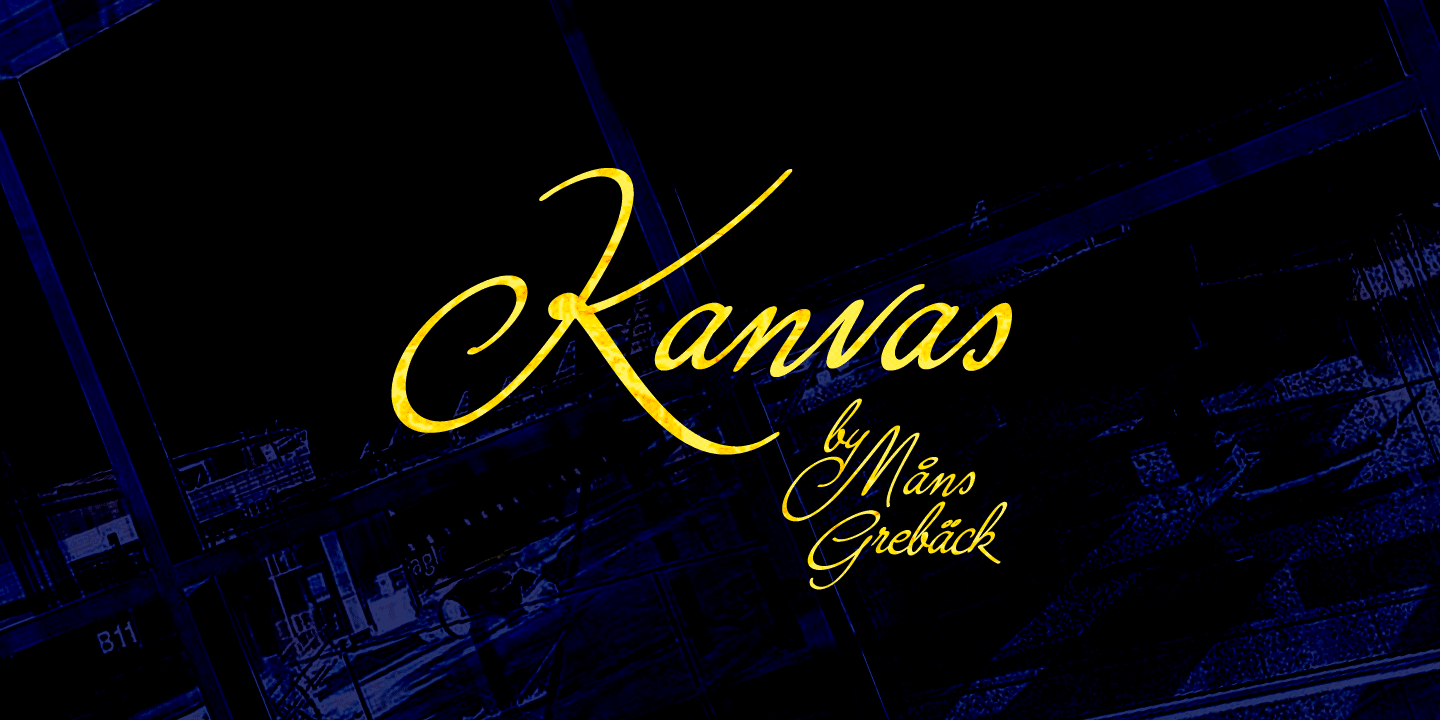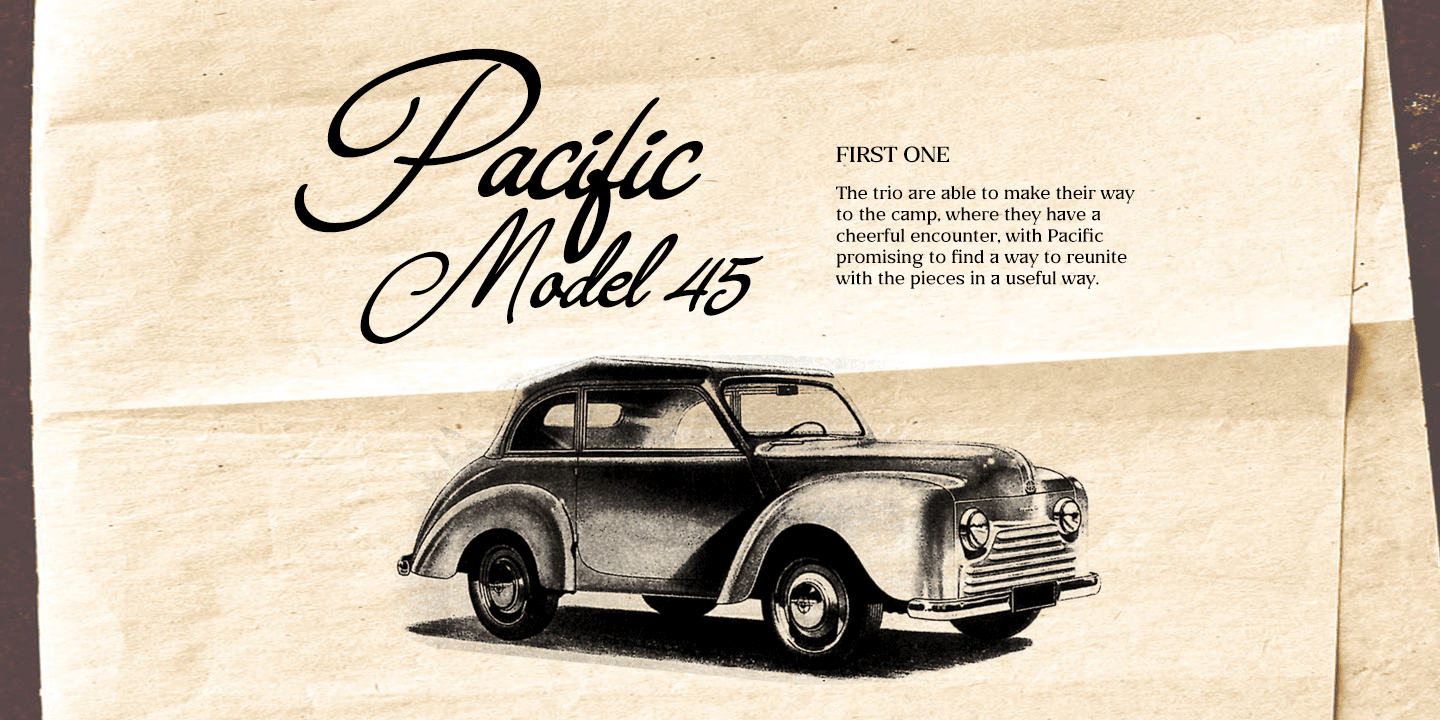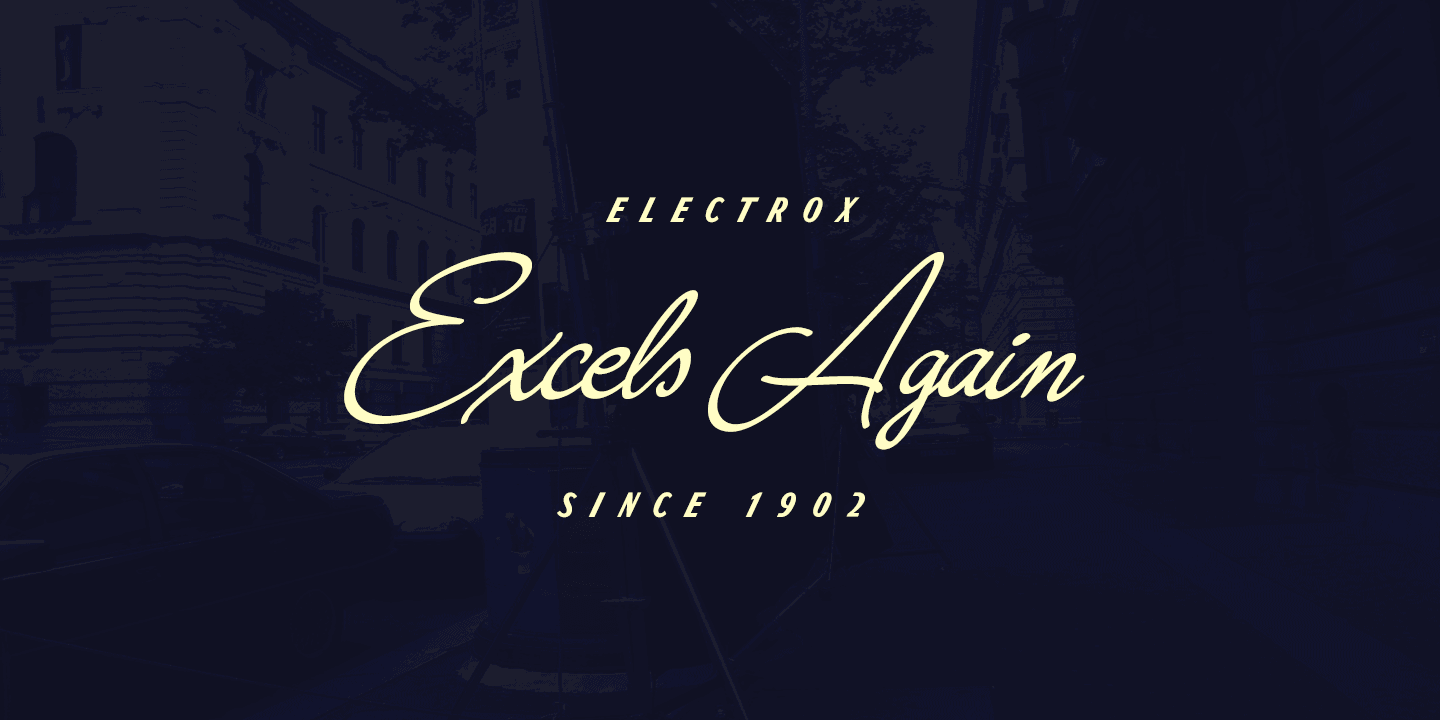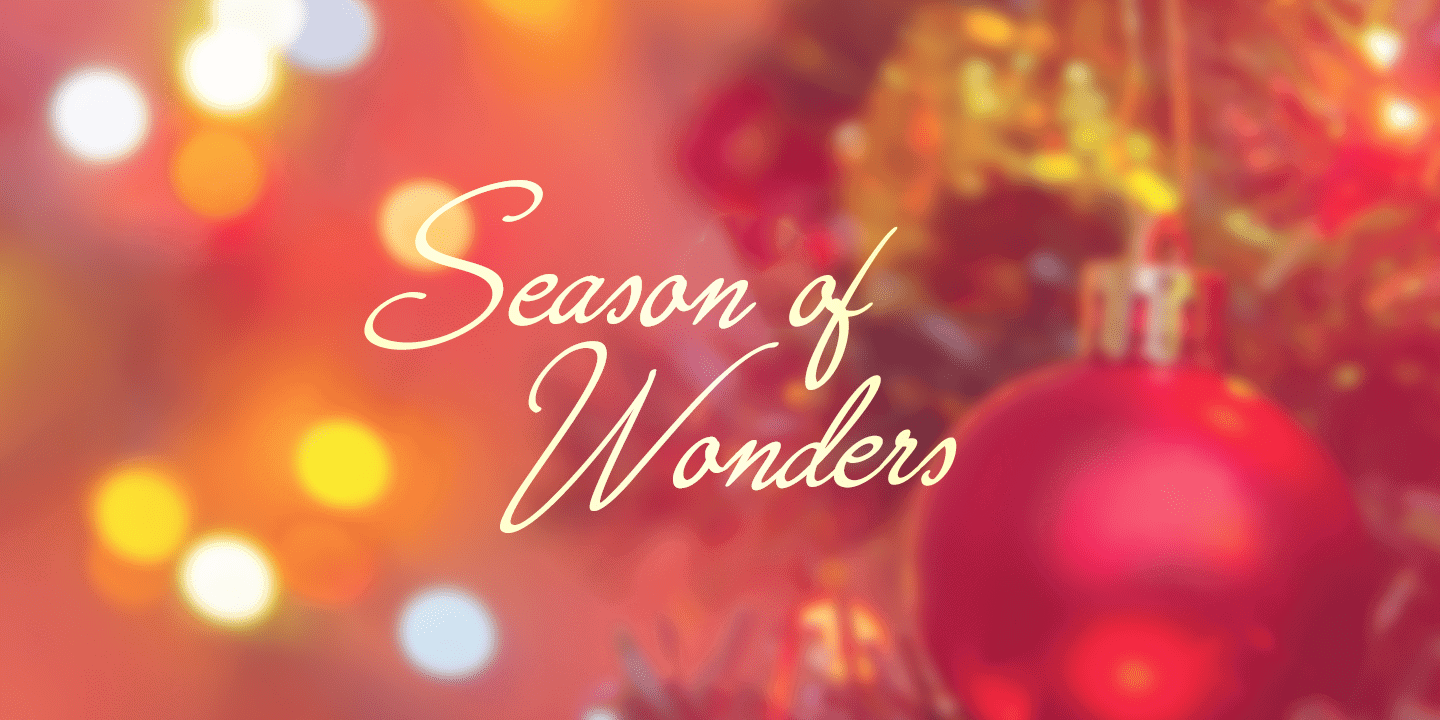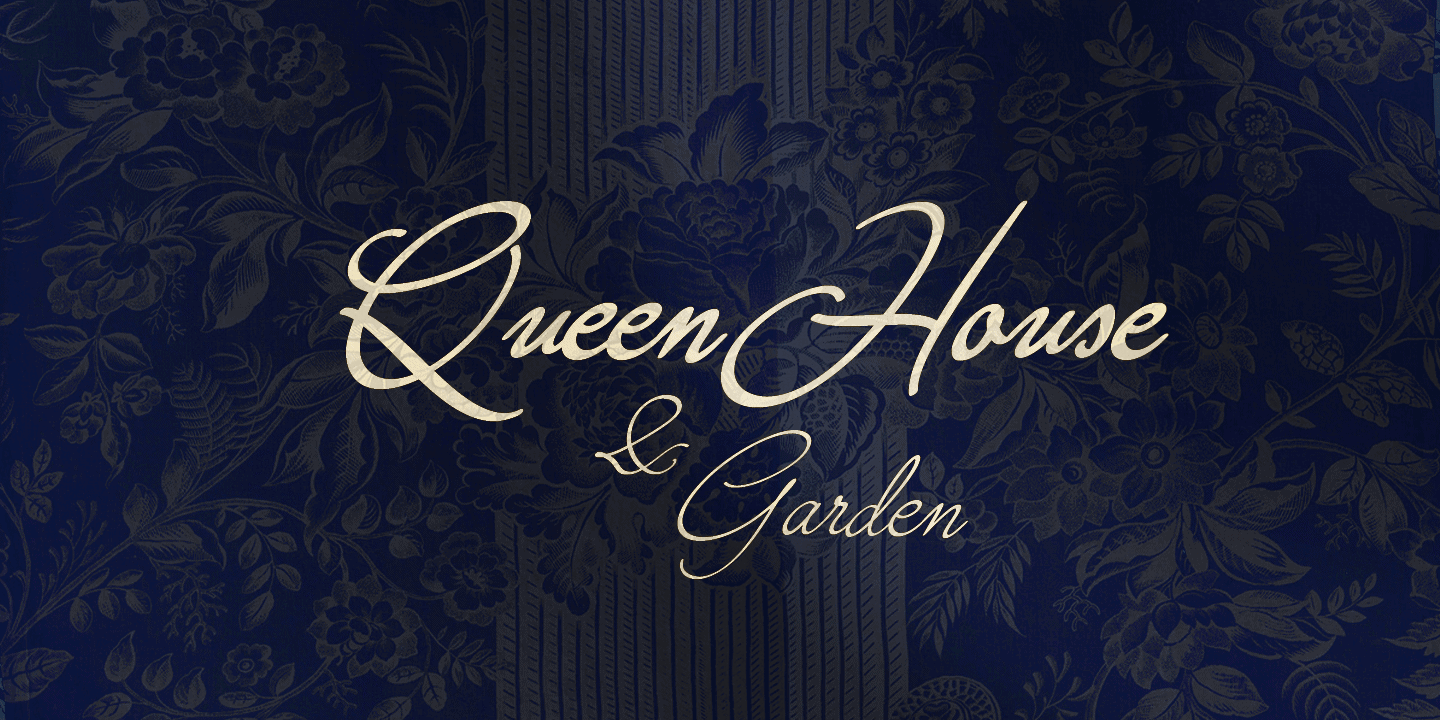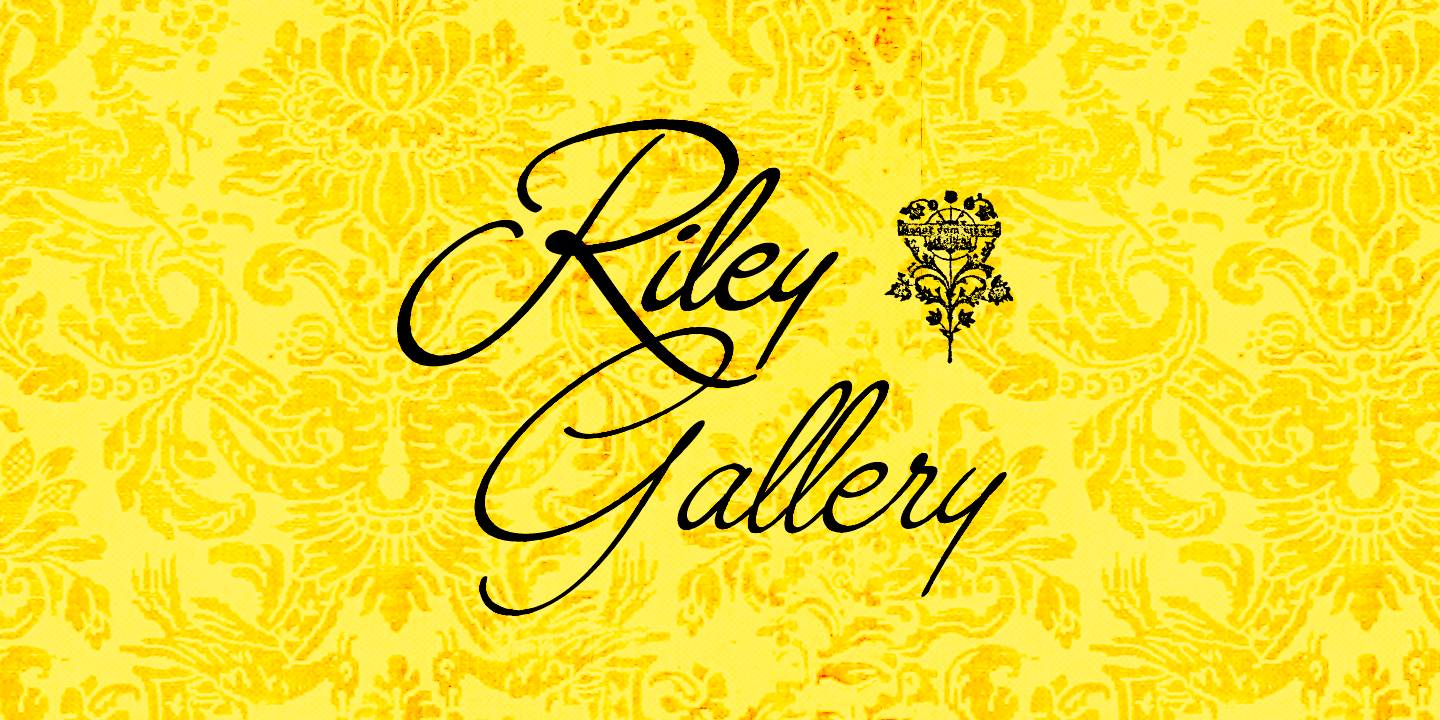
Kanvas
Kanvas is a flowing calligraphy script. The typeface was drawn and created by Måns Grebäck between 2017 and 2020. Its flowing shapes are inherited from mid-century advertising, being soft and friendly while retaining a sturdy forward movement. Kanvas is a typeface family consisting of five weights: Thin, Light, Regular, Bold and Black. Use it for an invitation card, in a celebratory context or as a logotype. The font contains all characters you’ll ever need, including all punctuation and numbers. It has an extensive lingual support, covering all European Latin-based scripts.